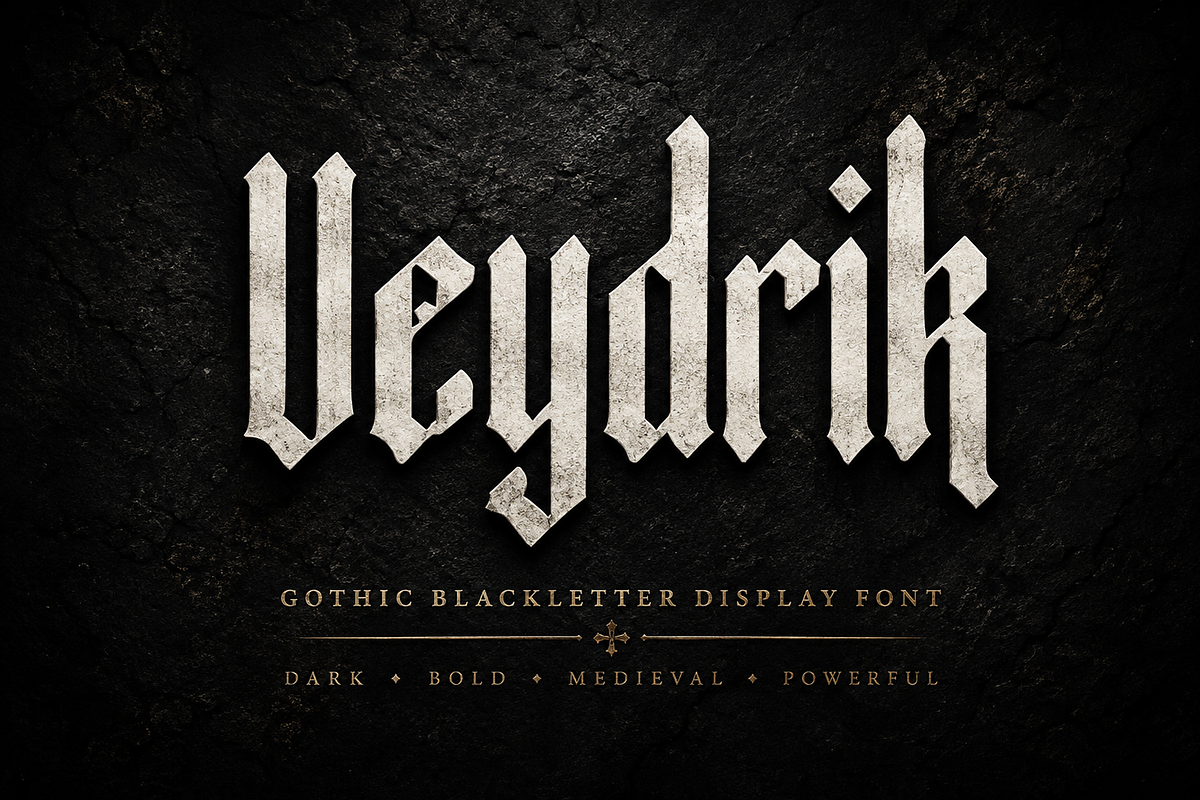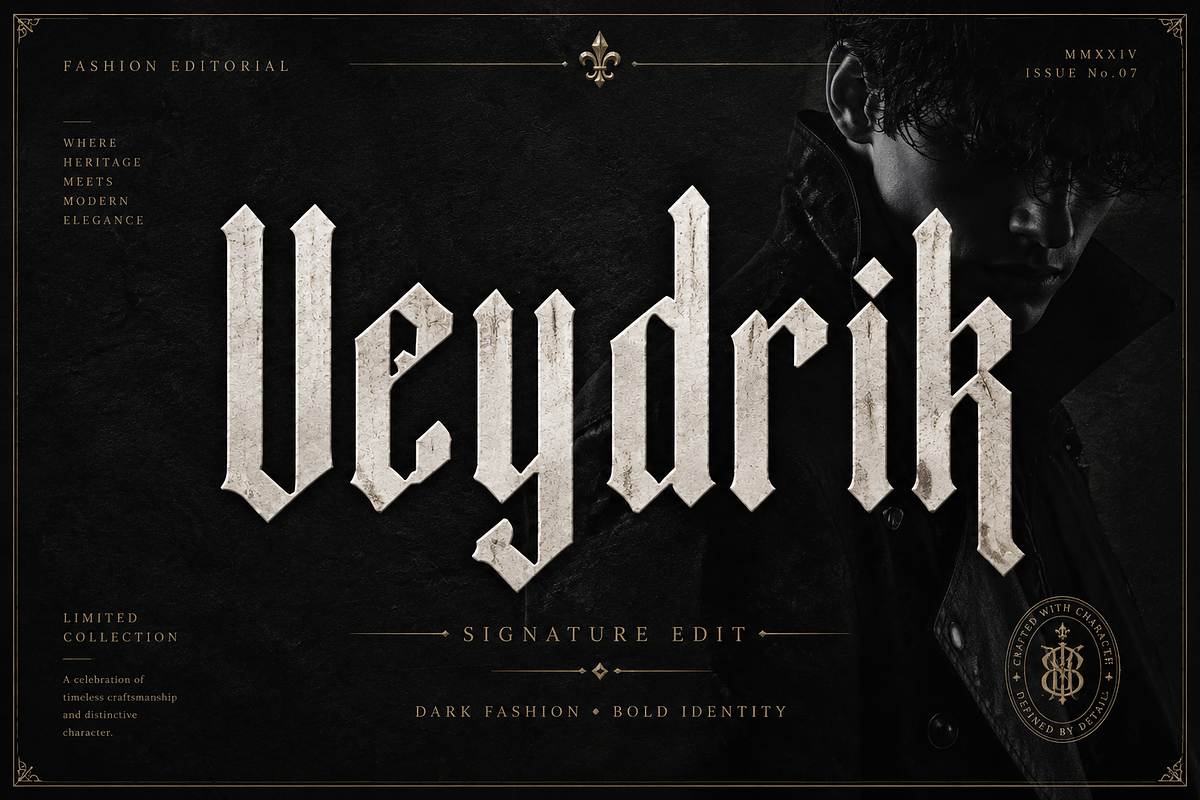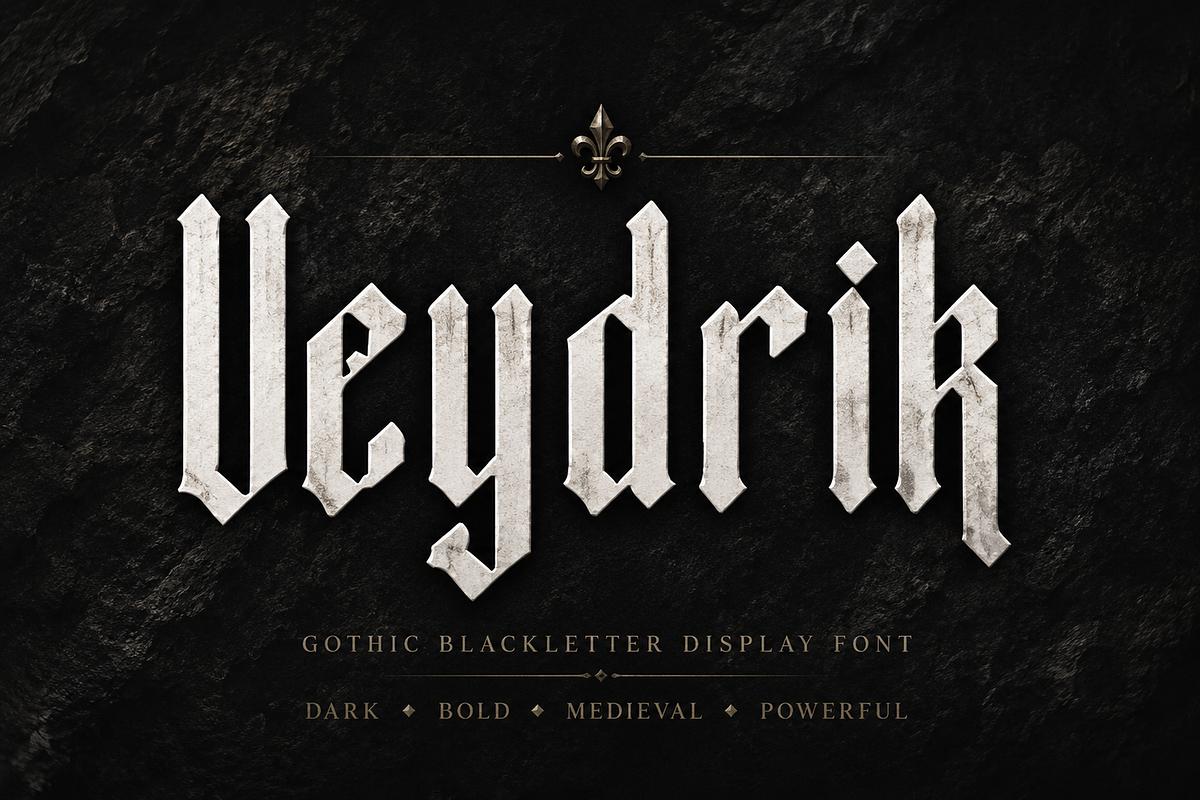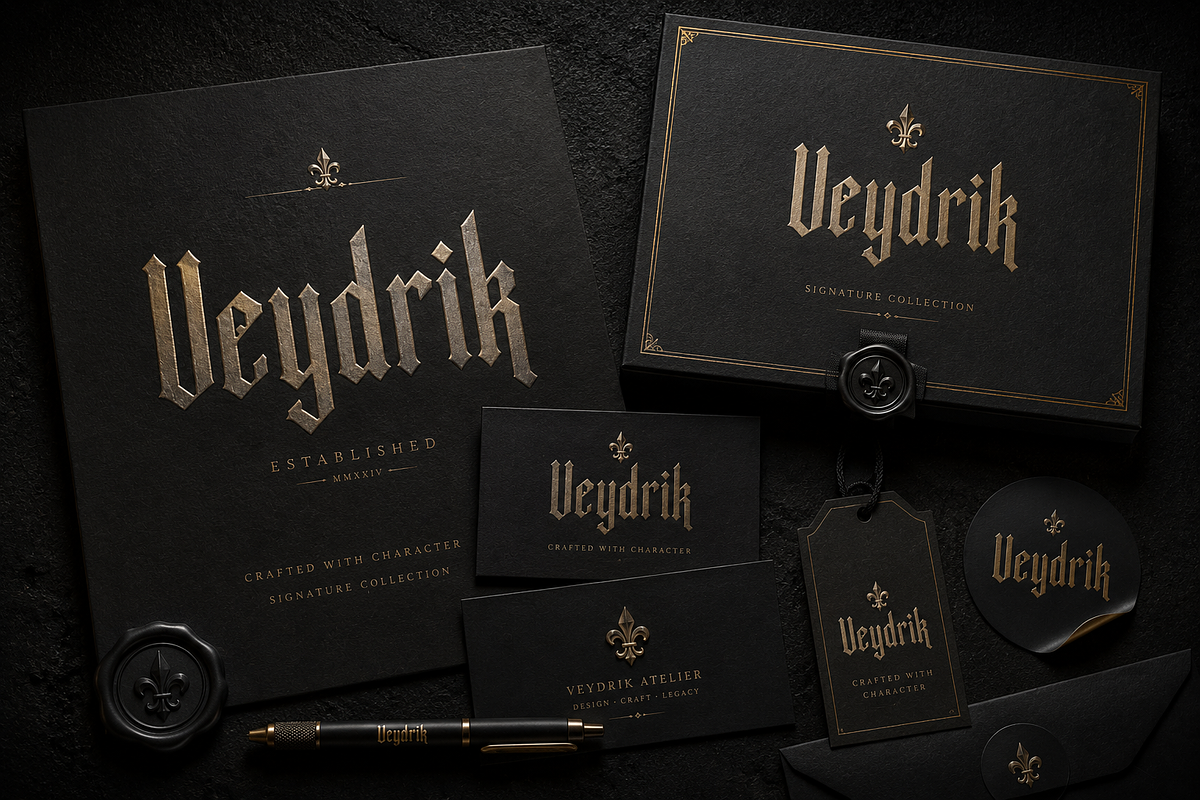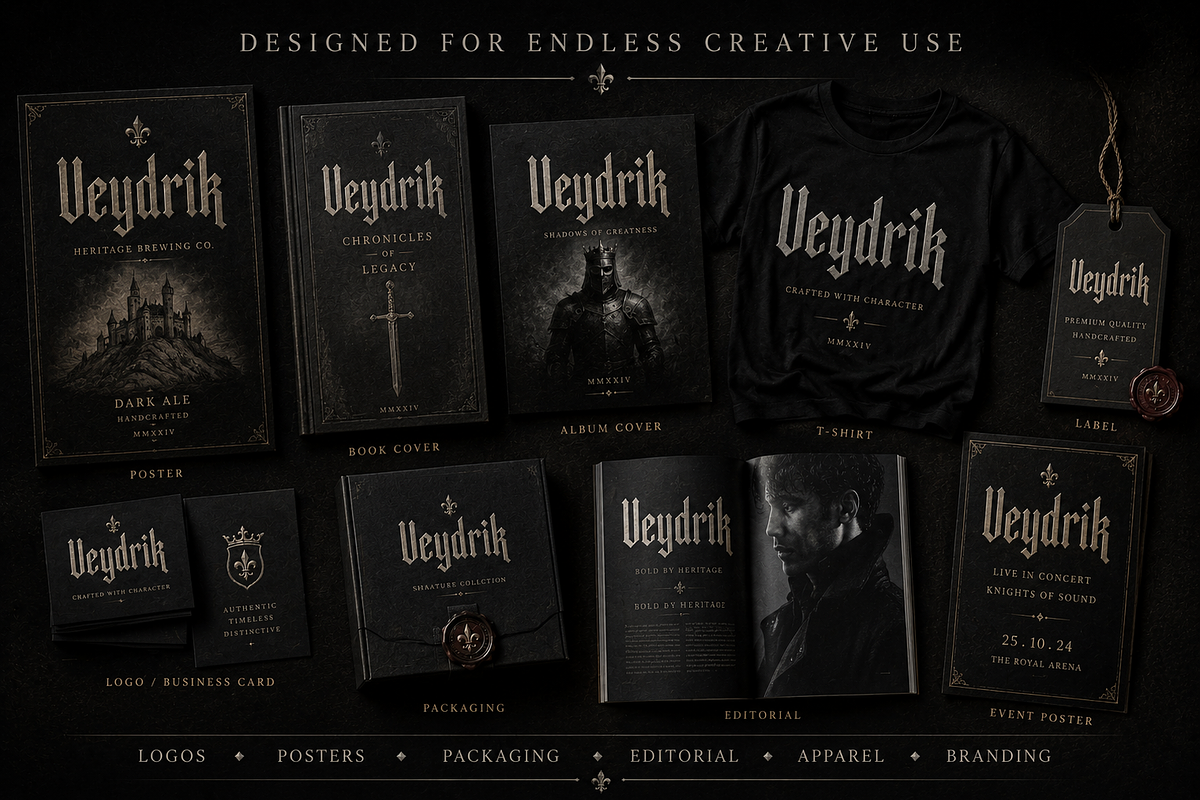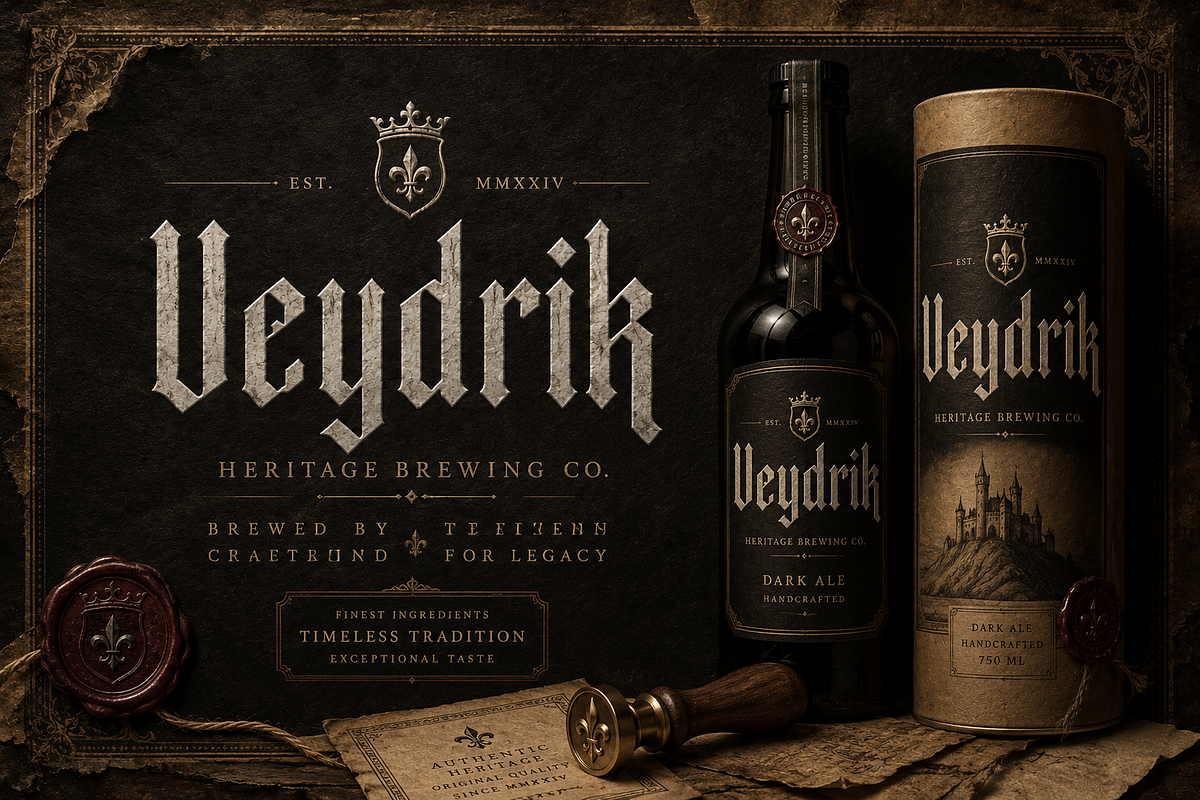
Veydrik
Veydrik — Dark. Bold. Medieval. Powerful.
Veydrik is a powerful Gothic Blackletter display font designed to bring a bold, dark, and distinctive character to your creative projects. Inspired by classic medieval typography with a modern, sharp-edged aesthetic, Veydrik is perfect for designs that need a strong visual presence and timeless personality.
Its dramatic letterforms work beautifully for logos, branding, posters, album covers, book covers, apparel, packaging, labels, editorial designs, event graphics, and more.
Whether you're creating a medieval-inspired identity, luxury branding, dark fashion artwork, music artwork, or bold merchandise, Veydrik adds an instantly recognizable Gothic character to your design.
Logo & Brand Identity
Gothic & Medieval Branding
Posters & Flyers
Album & Music Covers
Book & Magazine Covers
T-Shirt & Apparel Design
Packaging & Product Labels
Editorial Design
Event & Festival Graphics
Vintage & Heritage Projects
Fantasy-Inspired Designs
Merchandise & Print Design